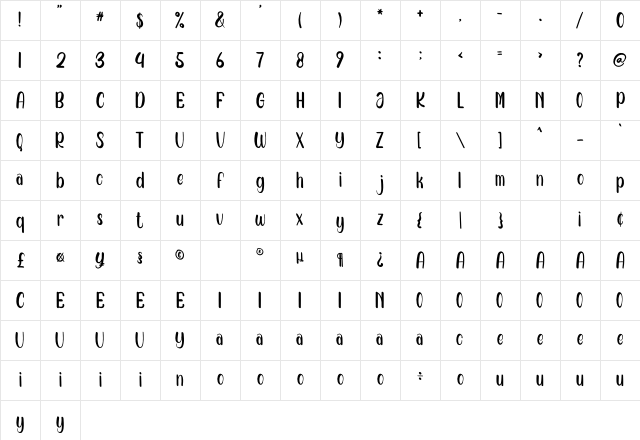
Summer Camping Regular Free Font
Summer Camping Regular
Design Context for Summer Camping
Summer Camping is a composed and adaptable typeface that performs quietly and consistently across a wide range of design contexts.